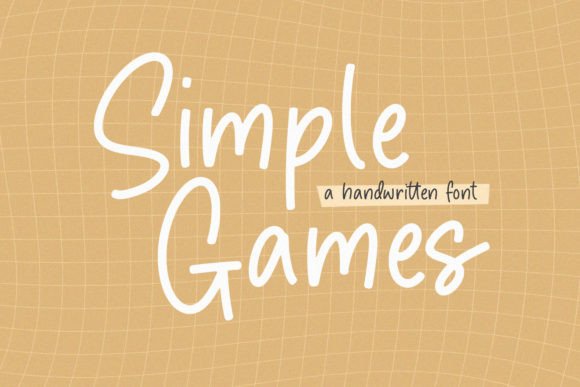
Introducing Simple Games Font, a delightful handwritten typeface meticulously crafted by Timur type, exclusively for you! 😊 Whether you're a creative professional or an aspiring artist, this font is your ultimate companion for all things expressive and captivating.
With its charming script style, Simple Games Font adds a touch of playfulness and sophistication to any design project. Its graceful curves and smooth strokes evoke a sense of elegance, making it ideal for product packaging that needs to stand out on the shelves. Imagine your brand's name beautifully displayed in this font, instantly grabbing attention and leaving a lasting impression on your customers.
But the versatility of Simple Games Font doesn't end there. It is also a perfect choice for branding projects, allowing you to create a unique and memorable identity for your business. From logos to business cards, this font will effortlessly elevate your brand and make it instantly recognizable. Your audience will be captivated by the authentic and personal touch that Simple Games Font brings to your visual identity.
In the world of social media, where visuals are everything, Simple Games Font shines bright. Use it to create stunning graphics, engaging posts, and captivating captions that will effortlessly draw in your audience. Whether you're a social media influencer, a content creator, or a small business owner, this font will help you create a cohesive and visually appealing feed that stands out from the crowd.
And let's not forget about weddings! Simple Games Font adds a touch of romance and elegance to any wedding invitation, save-the-date card, or thank you note. Its handwritten style brings warmth and personality to your special day, making it even more unforgettable for you and your guests.